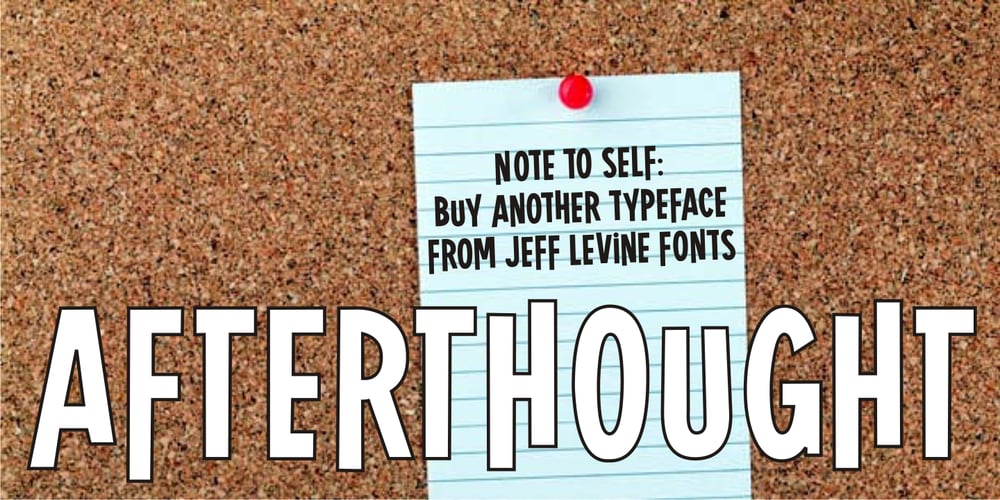
Afterthought JNL
Afterthought JNL font
Afterthought JNL Font Family was designed by Jeff Levine and published by Jeff Levine. Afterthought JNL contains 1 styles and family package options. Afterthought JNL is a light, bouncy and playful typeface . Perfect for any project that exudes a fun or casual theme.